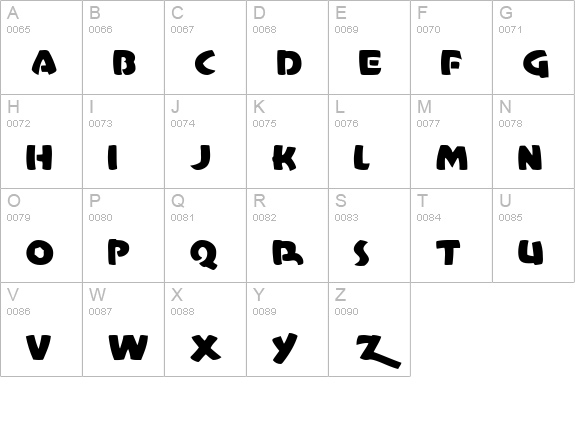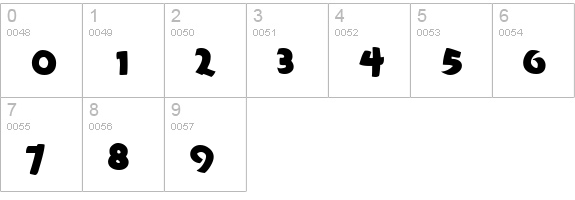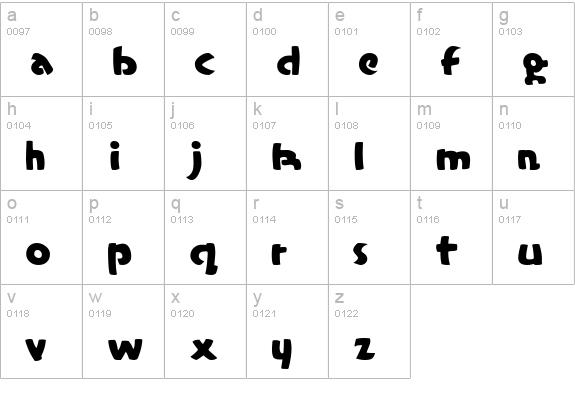
Casual Marker MF font is a charming and playful typeface that brings a friendly and laid-back vibe to any design project. With its hand-drawn appearance and casual strokes, this font is perfect for adding a personal touch to your work. Whether you're creating invitations, posters, or social media graphics, Casual Marker MF will give your designs a unique and inviting look. The best part? Casual Marker MF font is available for free download at FontsMarket.com. This means you can easily access this delightful font and start incorporating it into your projects without any cost. So why wait? Add a touch of casual charm to your designs with Casual Marker MF today!